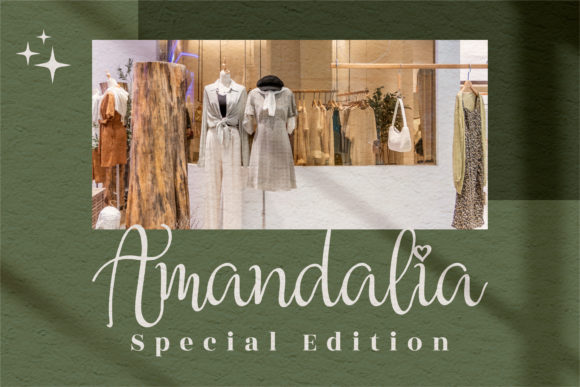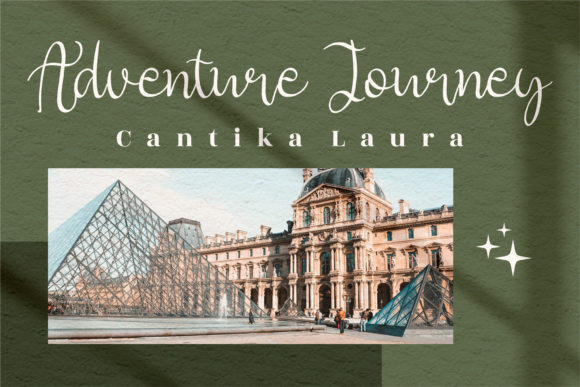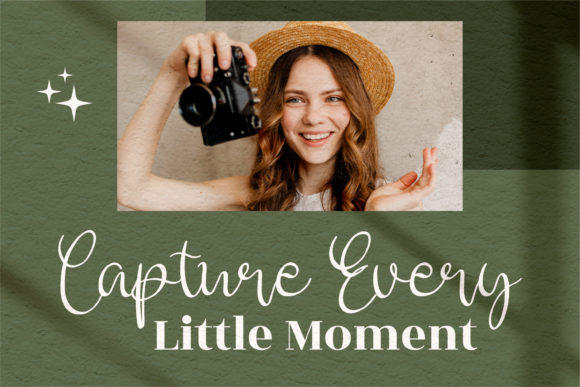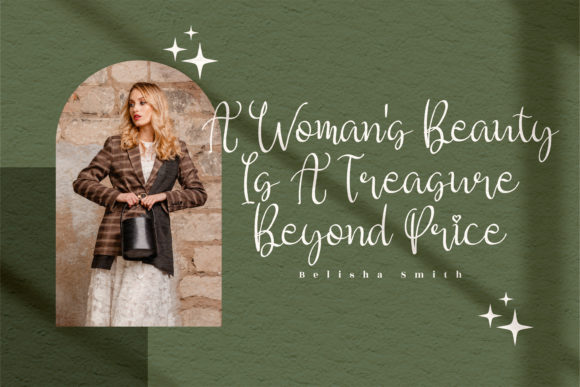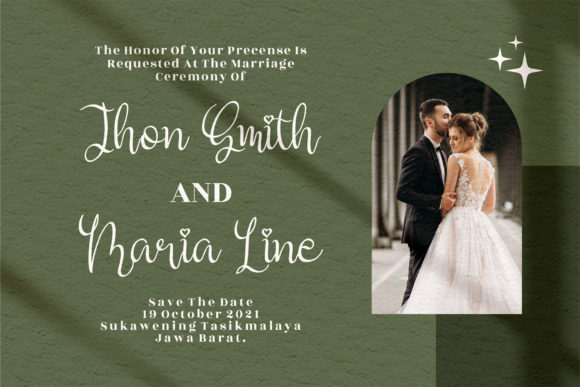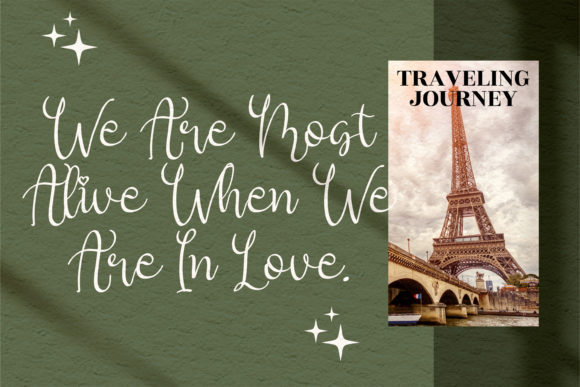
Introduction to Hafizah Font
Hafizah is a beautiful calligraphy font, perfect for adding a romantic touch to your lovely projects.
Hafizah will look wonderful on name cards, invitations, labels and can be used for many other special events .
Key Features of Hafizah Font